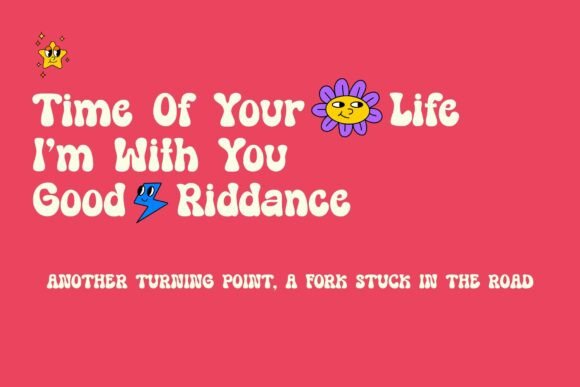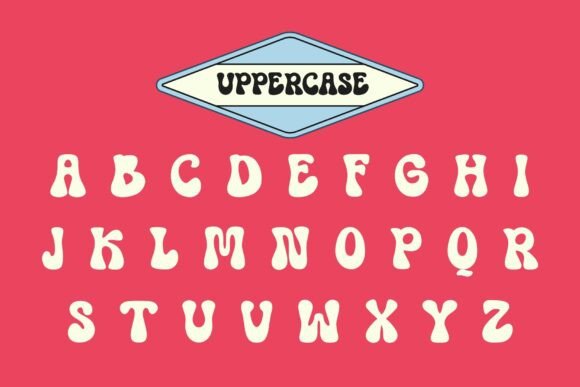
Well Soon Font
Well Soon is a fun and vibrant display font inspired by retro aesthetics and bubble lettering. Its bold, curvy design makes it perfect for crafting standout headlines, playful branding, t-shirt designs, posters, packaging, and more. Whether you’re designing for retro-themed projects, children’s content, or funky modern aesthetics, Well Soon adds a cheerful and lively touch to your work. With smooth, rounded edges and a whimsical vibe, this bubble font is sure to grab attention and spark joy. Perfect for creative crafters, graphic designers, and anyone looking to add a unique twist to their projects. Let your imagination flow with Well Soon!